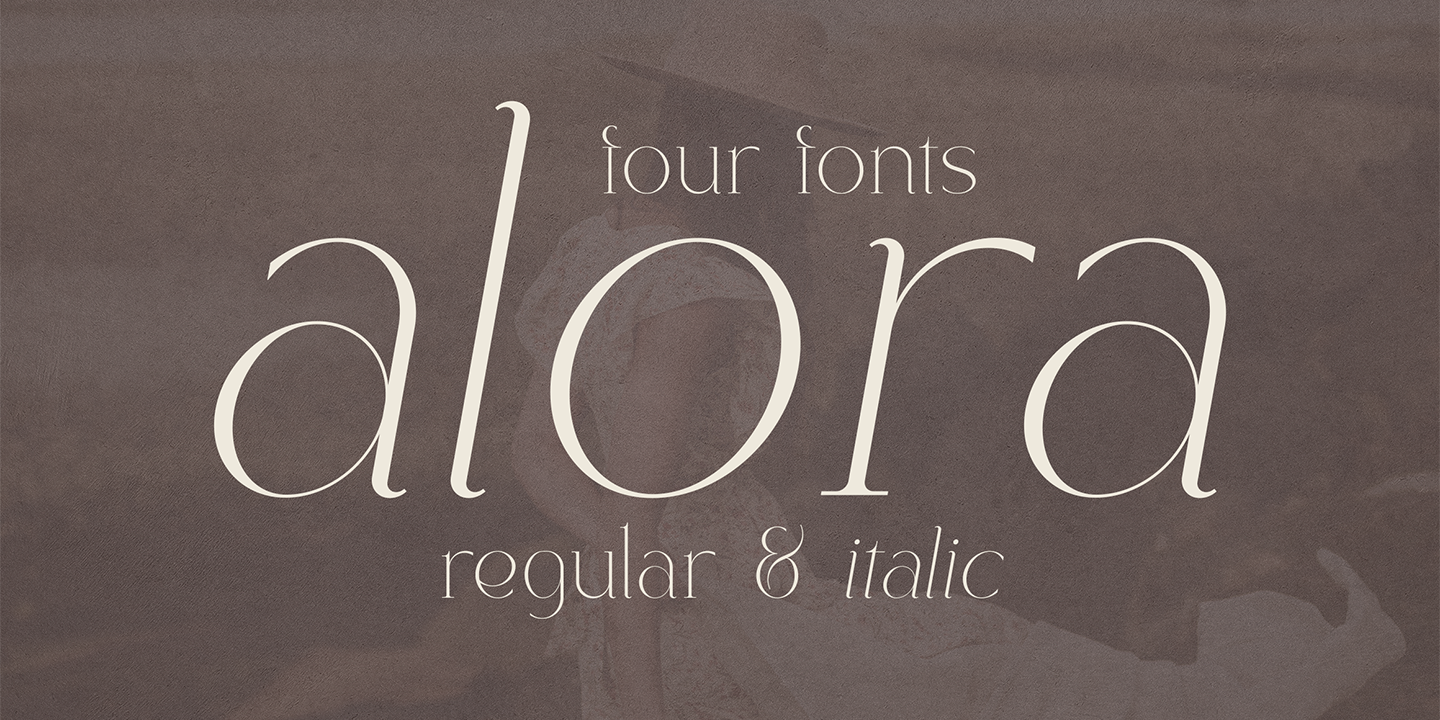
The Alora Font excels in various design applications including ethereal beauty branding, dreamy wellness communications, celestial lifestyle marketing, serene spa signage, mystical spiritual materials, heavenly wedding invitations, peaceful meditation center identities, angelic boutique packaging, luminous jewelry brands, and transcendent cultural projects that demand otherworldly elegance and divine sophistication.
What makes the Alora Font exciting is its embodiment of celestial beauty and ethereal grace through letterforms that capture the essence of divine inspiration and heavenly elegance. This typeface demonstrates exceptional lightness through carefully crafted characters that suggest the gentle touch of angels, the soft glow of starlight, and the peaceful serenity found in transcendent moments. The font's ethereal personality makes it perfect for wellness brands and spiritual organizations seeking to communicate divine beauty, peaceful transcendence, and the kind of heavenly elegance that lifts the spirit through typography that literally seems to float with angelic grace.
The Alora Font family typically includes luminous weight variations that enhance the celestial aesthetic, featuring flowing italic styles with ethereal flourishes and divine decorative elements. These family options often include heavenly alternates with enhanced spiritual characteristics, angelic ligatures, and celestial ornaments that provide designers with comprehensive tools for creating authentically transcendent typography that celebrates divine beauty while maintaining contemporary design appeal and spiritual accessibility.
Wellness professionals and spiritual organizations consistently select Alora Font Free Download for projects requiring typography that communicates ethereal beauty and divine inspiration. This typeface delivers exceptional performance in spiritual marketing, wellness branding, and transcendent communications where establishing peaceful atmosphere and inspiring spiritual connection is essential for audience upliftment. The font's celestial character makes it particularly effective for meditation and healing applications. Download Alora Font Free Download today to access this divine typeface that transforms communications with its ethereal elegance and celestial sophistication, creating compelling spiritual experiences that honor the beauty of transcendent moments while inspiring peaceful reflection and divine connection through typography that truly touches the soul.